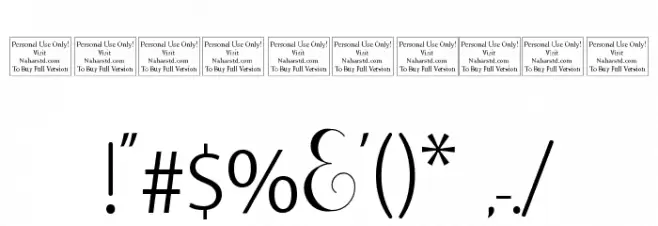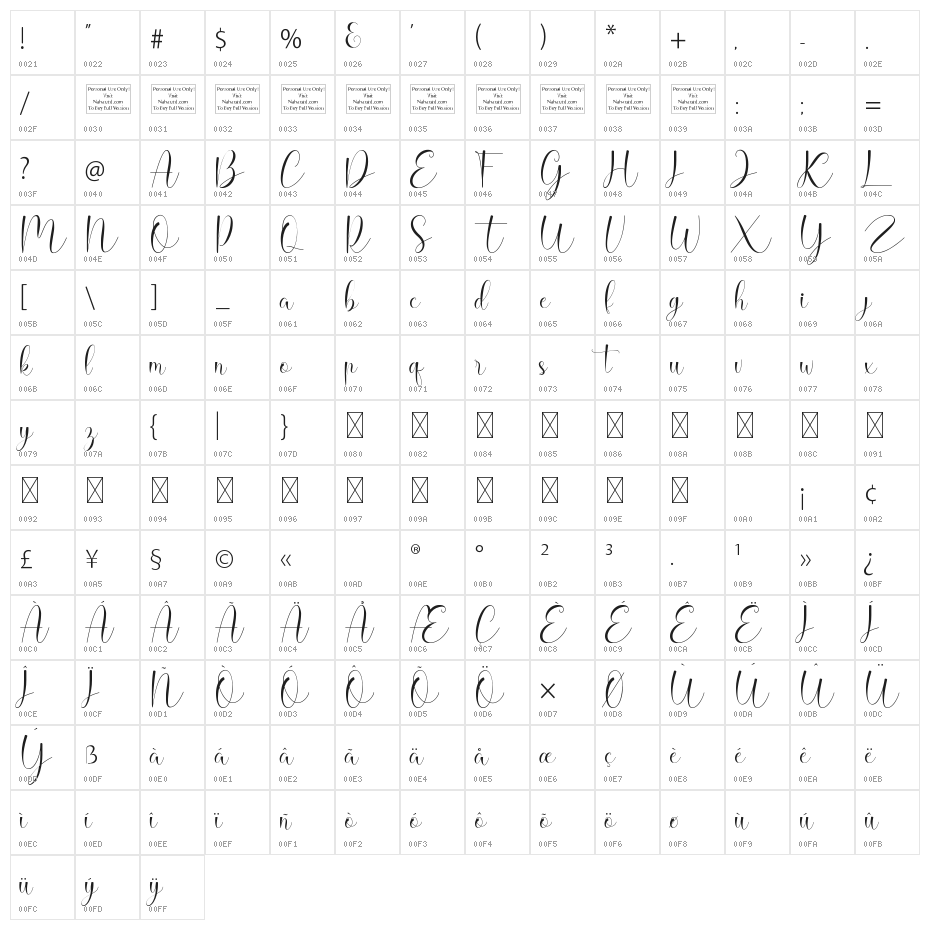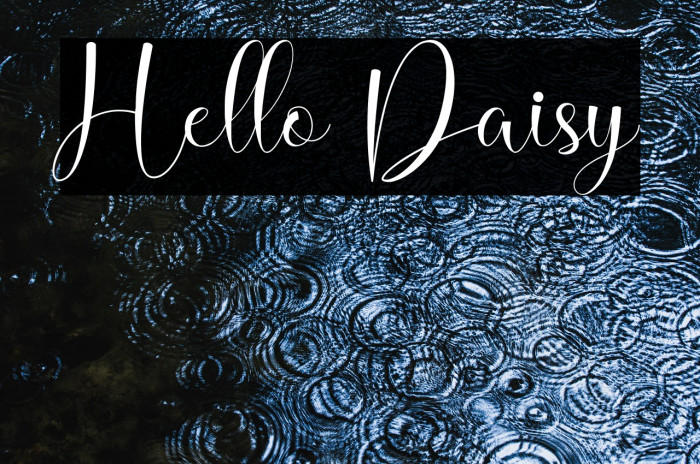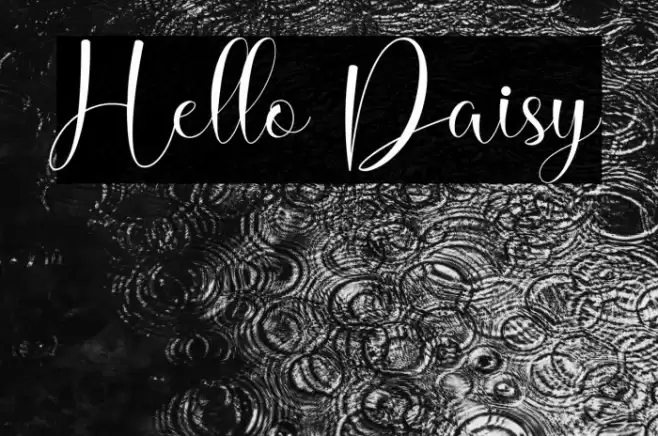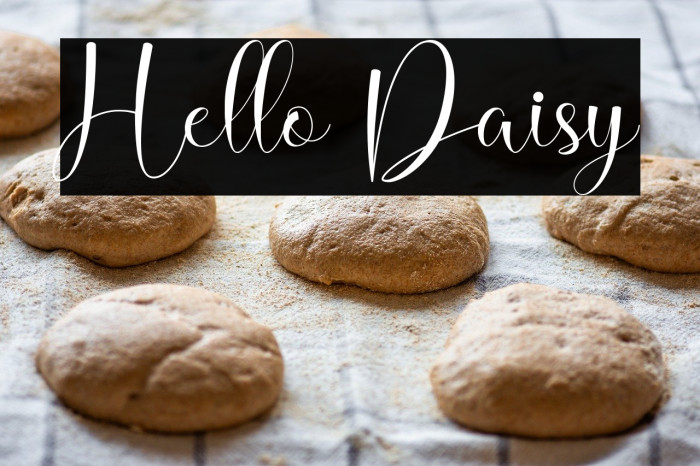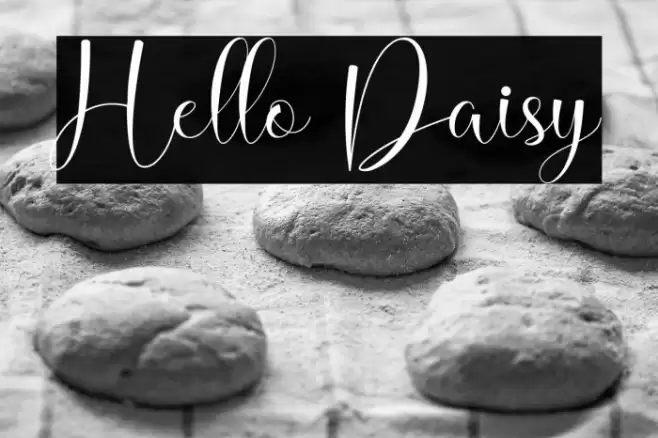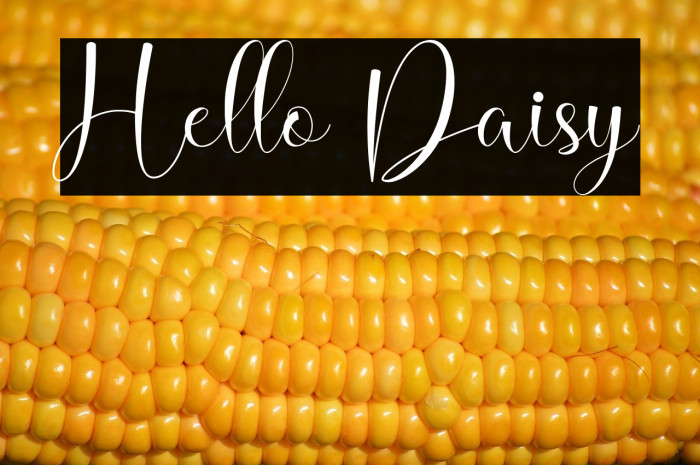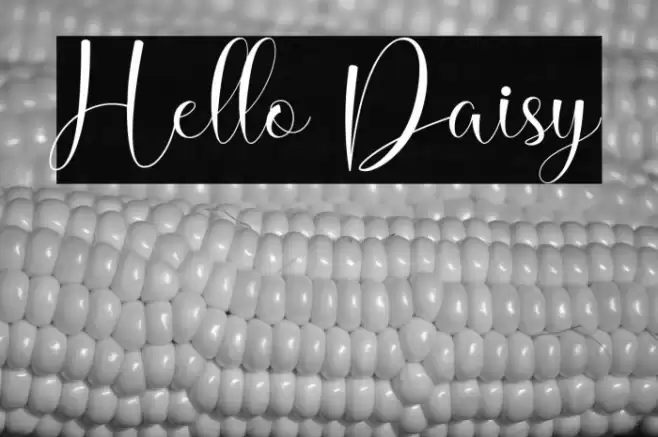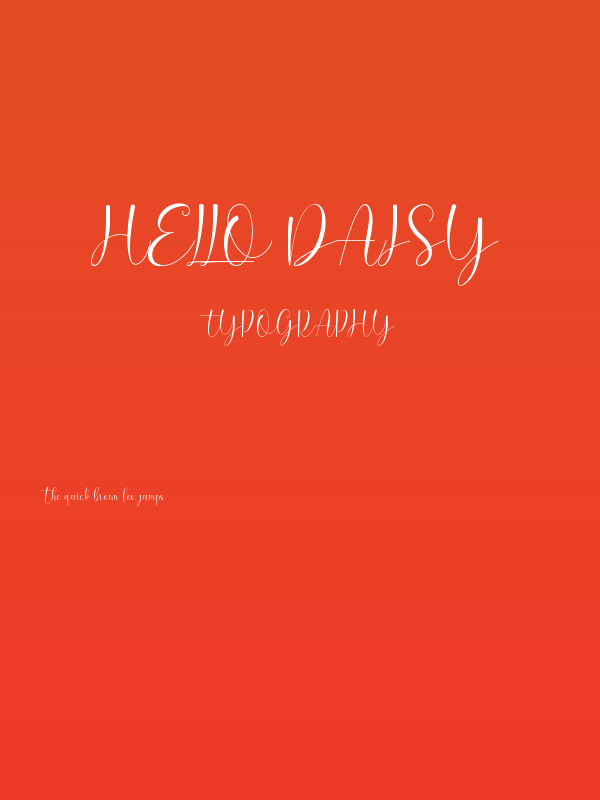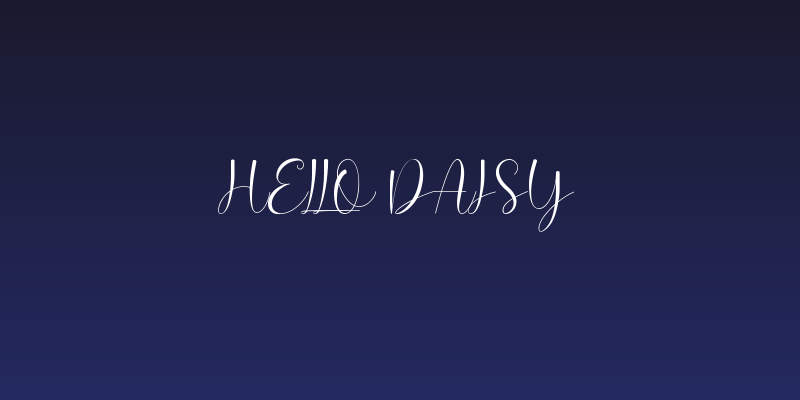
Hello Daisy Font
Hello Daisy Description
This font features an elegant and flowing script style, characterized by its graceful curves and fluid strokes. The uppercase letters are tall and slender, with a slight slant that adds a sense of movement and sophistication. The lowercase letters maintain a consistent style, with loops and swashes that enhance the font's decorative appeal. The numerals and special characters are designed to complement the overall aesthetic, ensuring a cohesive look across all text. This font is perfect for projects that require a touch of elegance and charm.
| Proposed Projects | Ideal for wedding invitations, greeting cards, branding, and elegant packaging designs. |